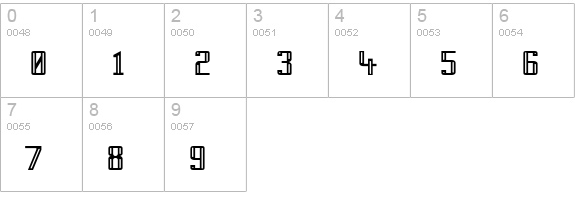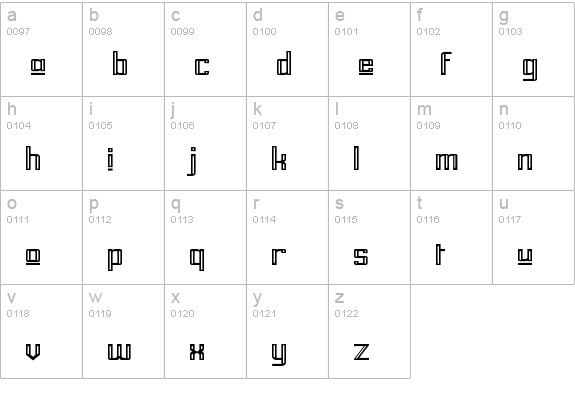
Prussian Brew Upper Font Details
Prussian Brew Upper font is a bold and stylish typeface that exudes elegance and sophistication. With its sharp edges and clean lines, this font commands attention and adds a touch of class to any design project. Perfect for headlines, logos, and branding materials, Prussian Brew Upper font is sure to make a statement. The best part? Prussian Brew Upper font is completely free to download at FontsMarket.com. Whether you're a professional designer looking to add a new font to your collection or a hobbyist wanting to elevate your projects, this font is a fantastic choice. Don't miss out on the opportunity to enhance your designs with the striking beauty of Prussian Brew Upper font – download it today and let your creativity soar!